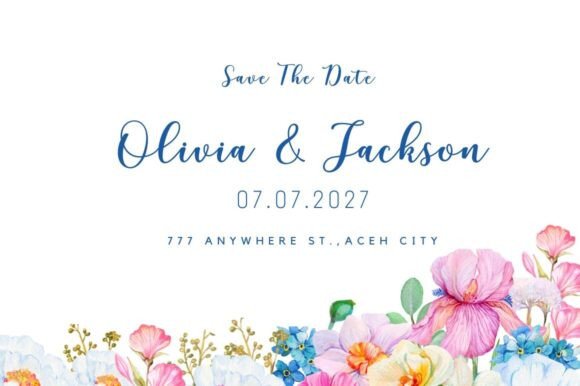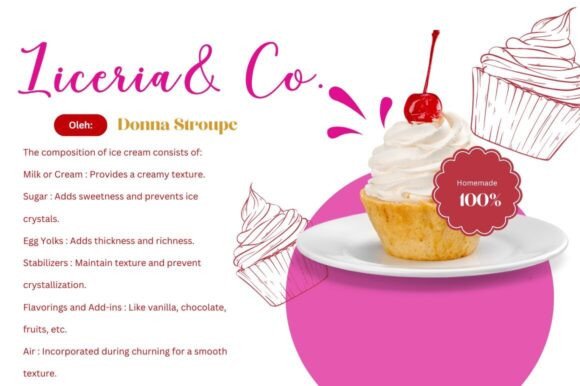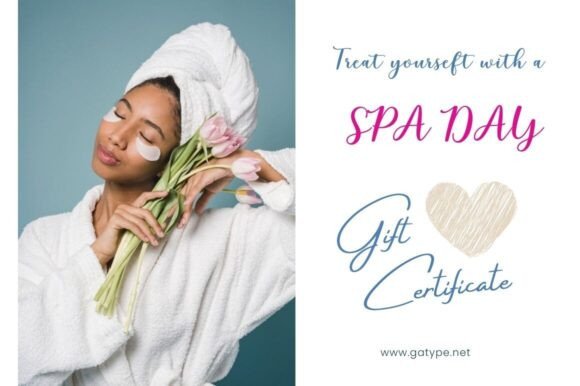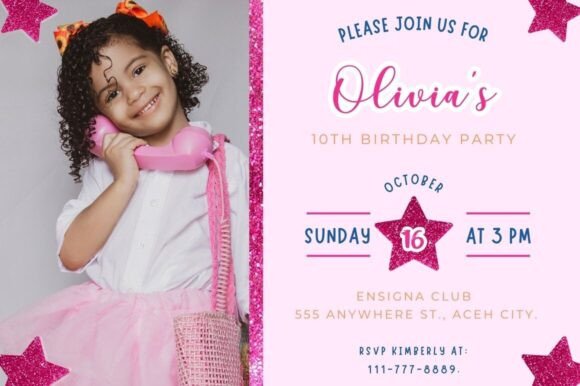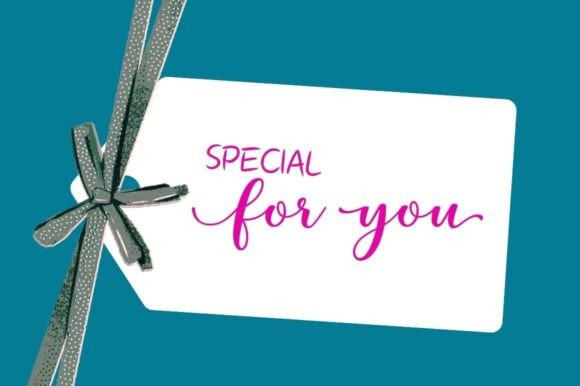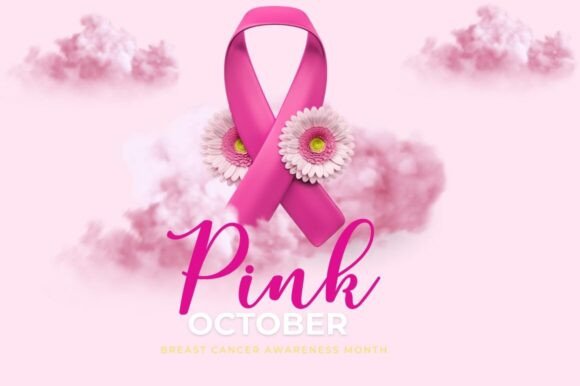
Introduction to Hentak Font
The Hentak font falls under the Script category, which means it has an artistic, handwritten look with flowing and connected strokes.
This font features elegant, interconnected characters with a smooth flow, giving it a stylish, feminine, and slightly vintage feel The letterforms are often thick yet flexible, making it suitable for designs that require a personal and inviting aesthetic, such as wedding invitations, boutique logos, or branding elements.
Key Features of Hentak Font
Why Choose Hentak Font?
Hentak Font offers exceptional quality and versatility, making it a valuable addition to your design toolkit. Whether you’re creating for personal projects or commercial use, Hentak Font delivers professional results.